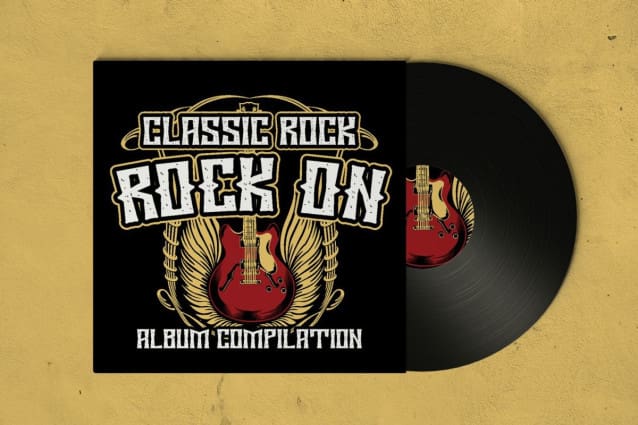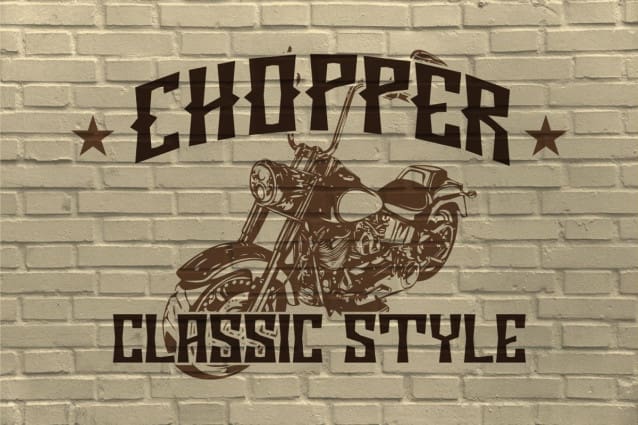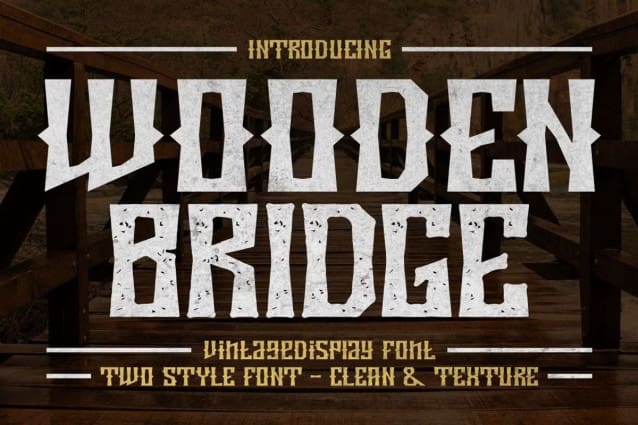
Wooden Bridge Vintage Font
Wooden Bridge Vintage Font – Vintage Display Font. The line of Wooden Bridge is also very unique, so it makes seem irregular, What makes Wooden Bridges unique is vintage touch in the character. Wooden Bridge Vintage is inspired by display of the 1970s posters but made flexible enough for everyday use.